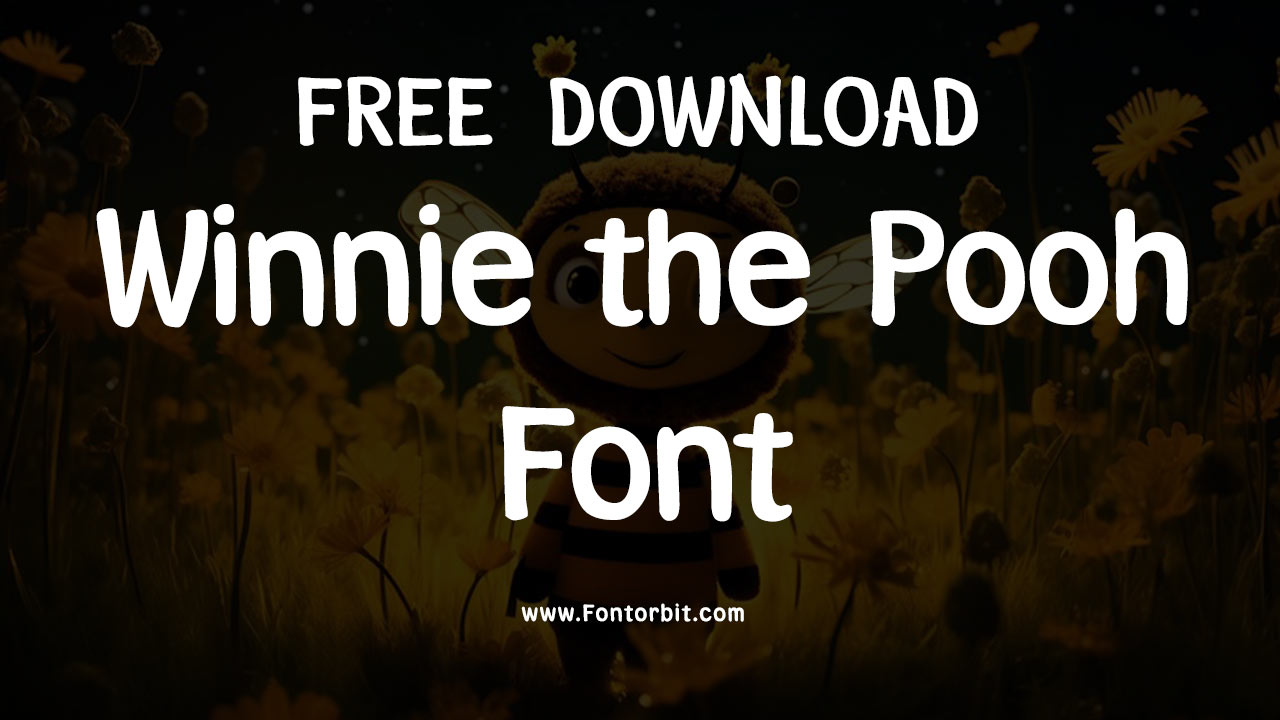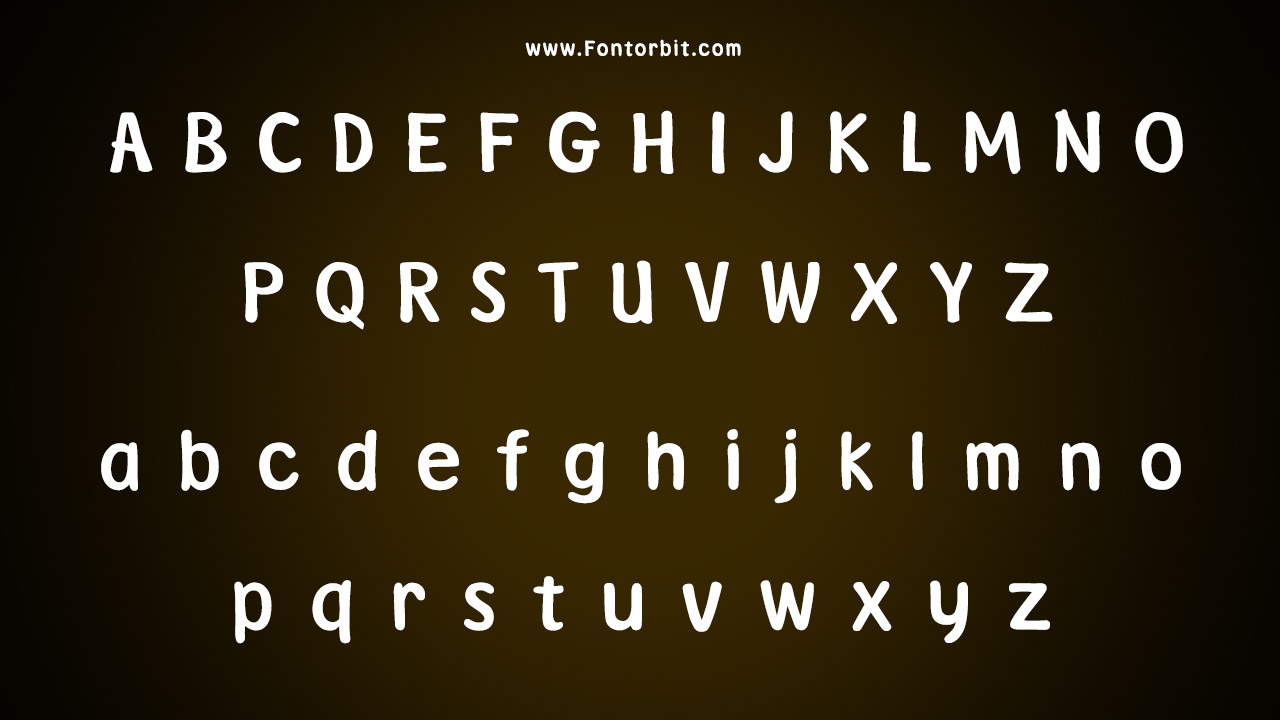
Winnie the Pooh Font, inspired by the whimsical character created by A. A. Milne, embodies the playful charm of the Hundred Acre Wood. While the original Pooh logo was custom-designed, the Piglet font by FG Studios closely resembles this style, making it perfect for adding a nostalgic touch to various personal projects.
The Winnie The Pooh Font Family
Winnie the Pooh Font falls into the Display/Handwritten category, featuring a delightful, hand-drawn aesthetic. The font family includes:
– Piglet Regular
The Piglet font infuses the spirit of the Hundred Acre Wood into a variety of creative projects. It’s ideal for:
The Winnie The Pooh Font In Use
Winnie the Pooh Font is perfect for personal projects that seek to capture the whimsical charm of Winnie the Pooh. Its playful style enhances children’s materials, making learning fun and engaging. Additionally, it adds a delightful touch to celebrations and themed events, evoking the nostalgic allure of the beloved character.
Winnie the Pooh Font is a charming typeface that brings a sense of nostalgia and playfulness to a variety of personal projects. Whether you’re creating themed art or designing children’s materials, this font captures the whimsical spirit of the Hundred Acre Wood, making your designs truly special.
1.What Are The Considerations For Using Winnie The Pooh Font In Projects?
Ensure the font aligns with the playful and child-friendly aesthetic. It’s perfect for personal projects but may not suit formal branding.
2.What Are The Different Weights Available For The Winnie The Pooh Font?
The Piglet font typically comes in a single weight, Regular, to replicate the playful and whimsical nature of the original design.
3.How Does The Winnie The Pooh Font Compare To Other Similar Fonts?
Piglet features a whimsical hand-drawn style that distinguishes it from other playful fonts like “Comic Sans” or “Bradley Hand,” capturing the unique charm of Pooh.
4.What Font Is Winnie The Pooh?
The original Winnie the Pooh logo uses custom hand-drawn lettering; the closest similar font is “Piglet” by FG Studios.
5.What Is The Winnie The Pooh Font Called?
The closest font to the Winnie the Pooh logo is called “Piglet” by FG Studios.